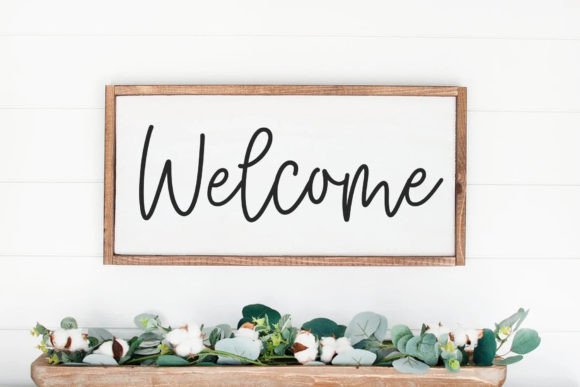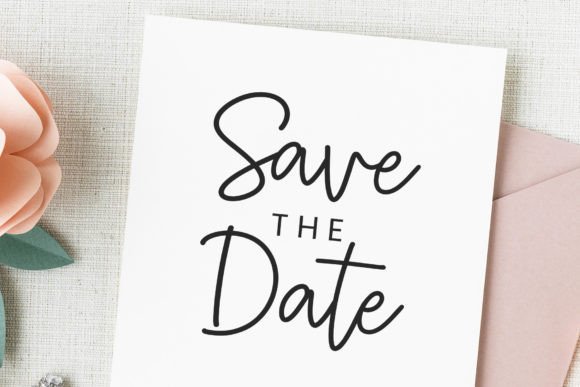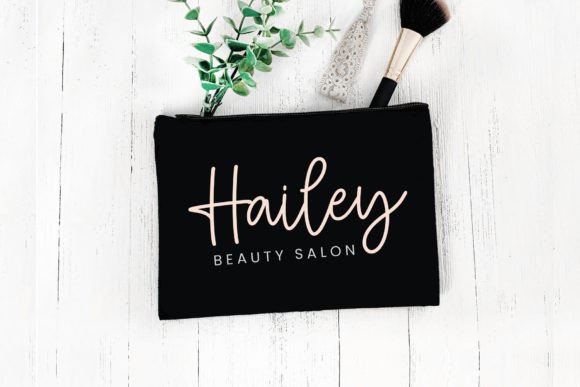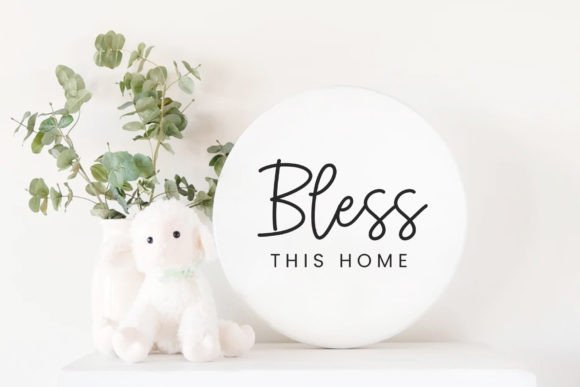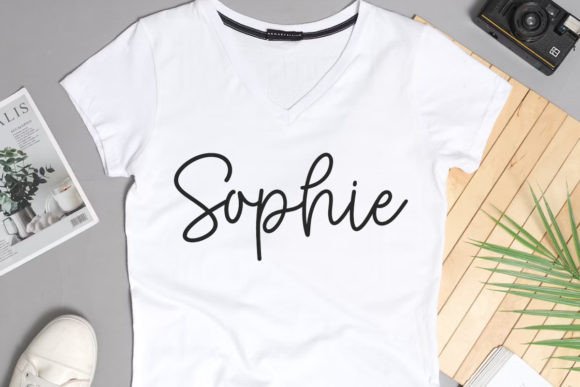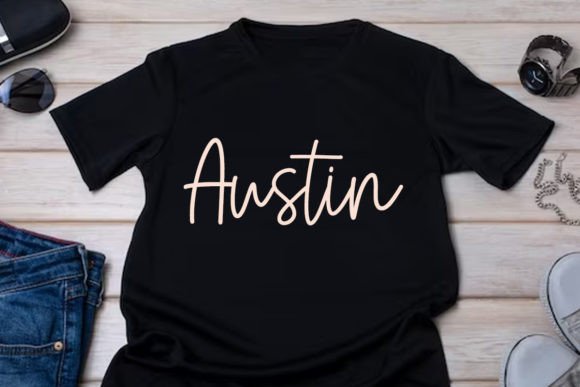
Introduction to Riley Declan Font
Riley Declan is a fresh, modern, stylish, and flowing handwritten signature font.
It has beautiful and well-balanced characters and as a result, it matches a wide pool of designs It is the best choice for creating eye-catching logos, branding, and quotes.